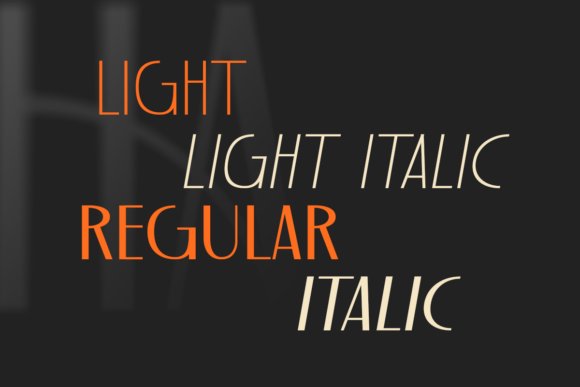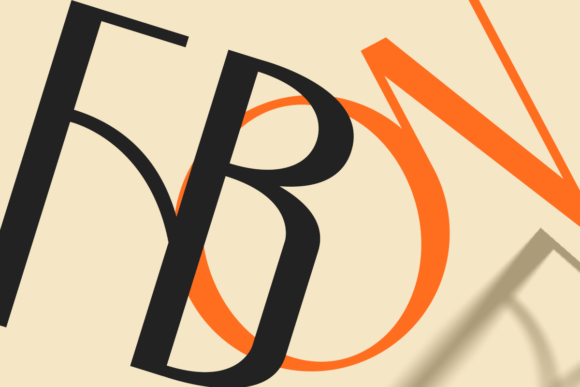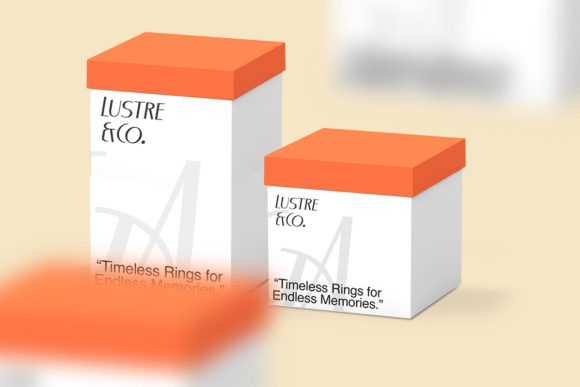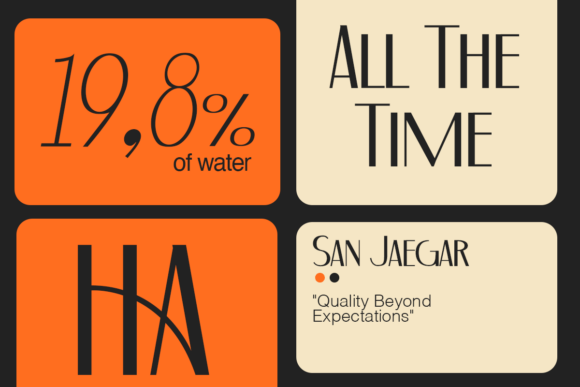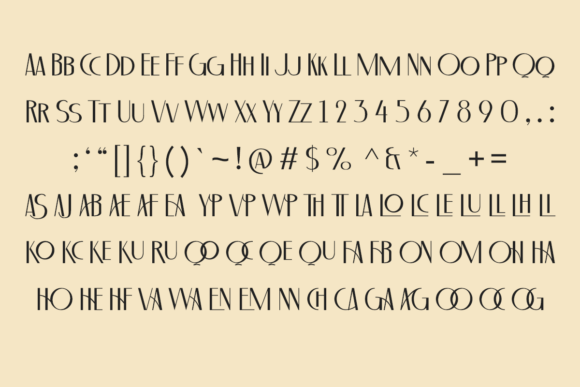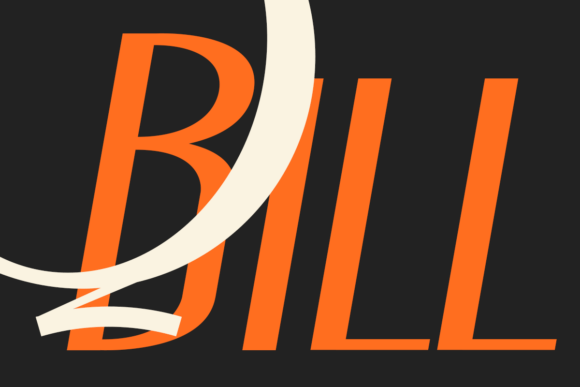
Introduction to Ft Decophile Font
Imagine you’re working on a creative project, and you’re stuck on finding the perfect font to match your client’s luxurious brand. The perfect font can make all the difference in elevating your design from good to great. That’s where the Ft Decophile Font comes in – a sophisticated Art Deco-inspired serif font that exudes modern elegance and timeless luxury.
With its tall letterforms, geometric balance, and subtle curves, this typeface brings a refined aesthetic to branding, packaging, posters, and editorial designs. Whether you’re working on a high-end fashion campaign or a luxury lifestyle magazine, the Ft Decophile Font is a valuable design resource that can add a touch of sophistication to your creative project.
What sets the Ft Decophile Font apart is its versatility – it’s perfect for designers who want to add a touch of elegance to their designs, whether it’s a logo, a brochure, or even a simple social media post. And the best part? It’s available for a free download, making it an excellent addition to any designer’s toolkit.
Key Features of Ft Decophile Font
- Unique and elegant design, ideal for creative projects and personal branding
- High-quality font with a transparent background, making it perfect for digital design
- Designed as a versatile design resource for various applications, including logos, typography, and graphics
- Available in a range of weights and styles, allowing for customization and flexibility in creative projects
- Perfect for designers, artists, and individuals looking for a high-quality, free font to elevate their design
Honest Review: Ft Decophile Font
I recently stumbled upon the Ft Decophile Font while searching for a unique design resource to elevate my creative project. I must say, it’s been a game-changer. ✨ The font’s elegant and vintage vibe instantly caught my attention, and I was excited to see how it would work in my design.
Here are some of the things that I love about the Ft Decophile Font:
- Only a single font style is available, which might limit its versatility
- Some users may find the font’s vintage aesthetic too ornate for their taste
Overall, I’m thoroughly impressed with the Ft Decophile Font. Its unique design and high-quality construction make it an excellent addition to any designer’s toolkit. While it may not be perfect, it’s a great resource for creative projects that require a touch of elegance and sophistication. ⚠️
Tips for Getting the Most Out of Ft Decophile Font
For optimal results, pair the Ft Decophile Font with a transparent background to create a sleek and modern design. Experiment with different font sizes and styles to achieve a unique look.
Common Use Cases for Ft Decophile Font
The Ft Decophile Font is suitable for a variety of creative projects, including graphic design, digital art, and print materials. Its versatility and high quality make it an excellent design resource for both personal and professional use.